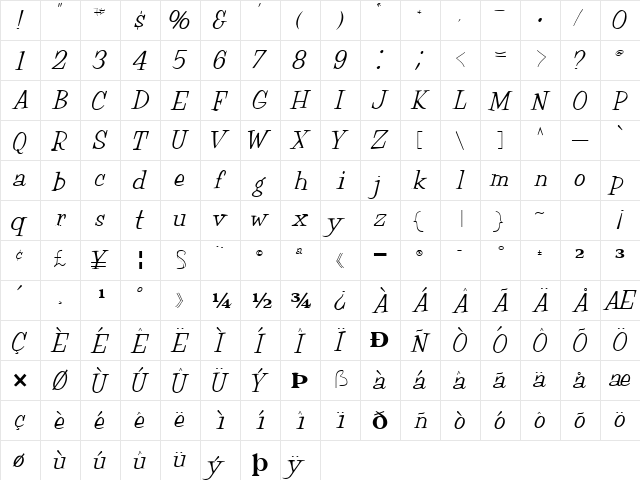
Jo Regular
Design Context for Jo Typeface
Jo takes a measured approach to typography — its balanced proportions and neutral character make it a reliable workhorse for both digital and print work.